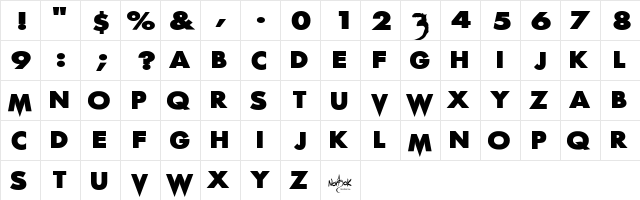
Scream Real Regular
| Designer | Thomas W.Otto |
Design Context for Scream Real Typeface
Scream Real is a composed and adaptable typeface that performs quietly and consistently across a wide range of design contexts.